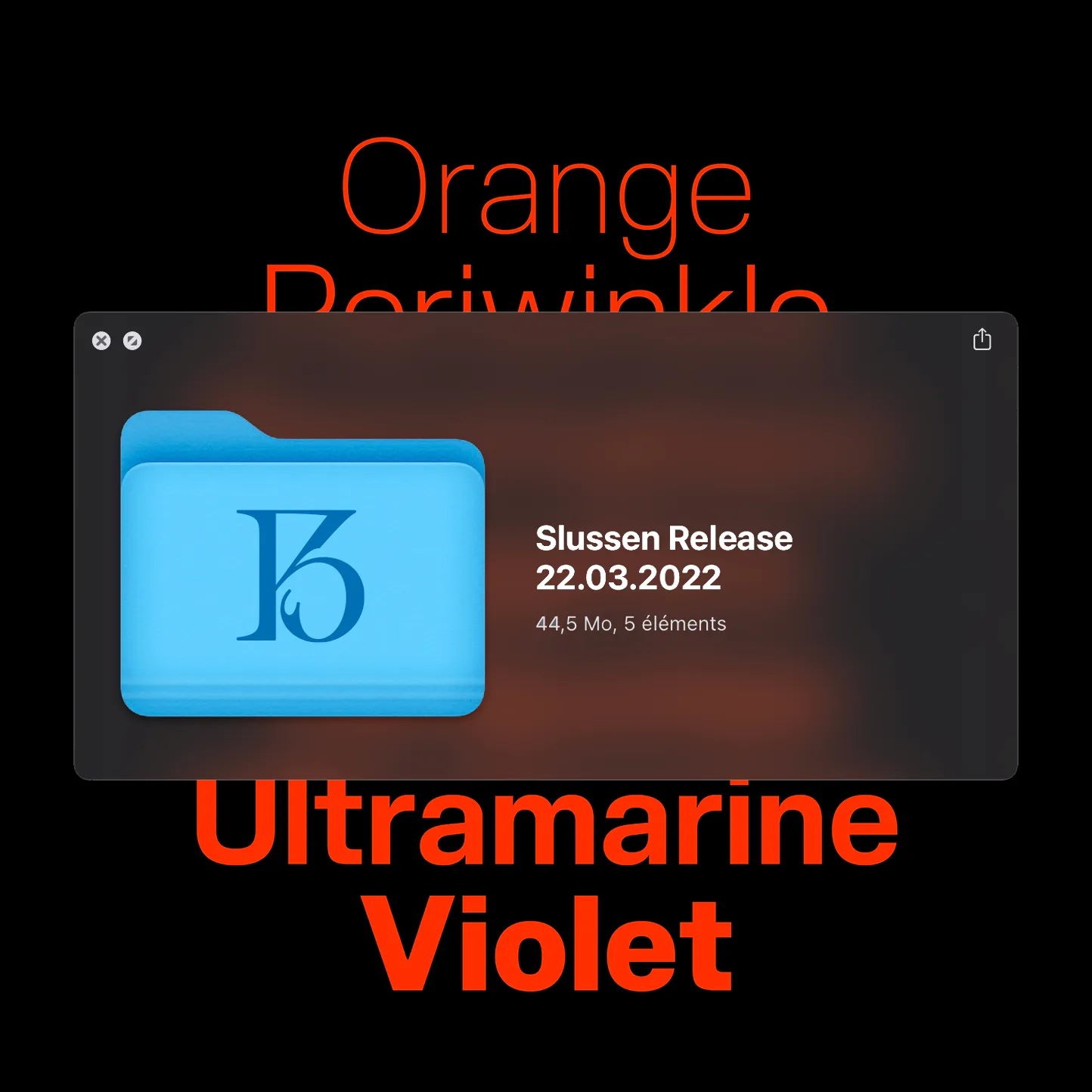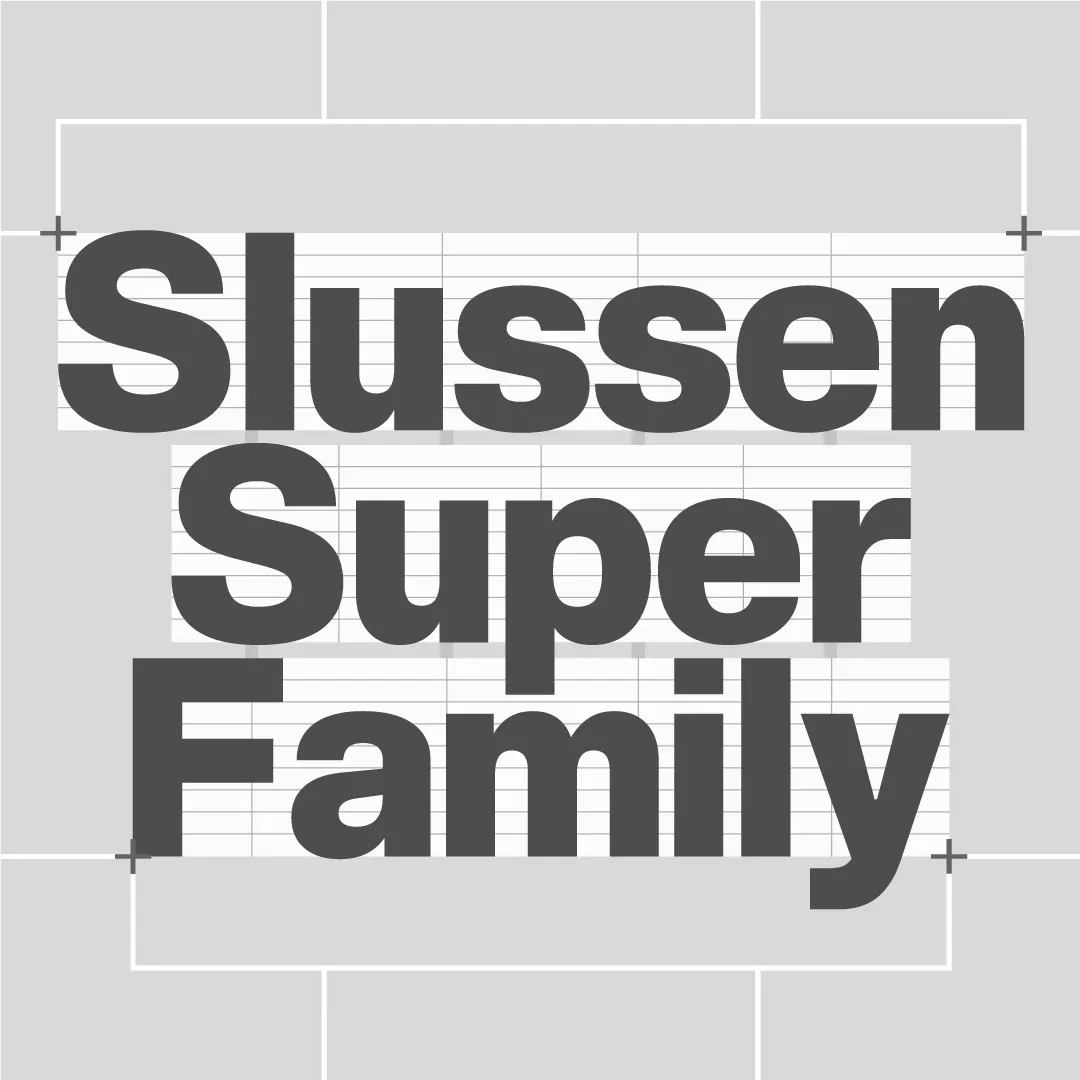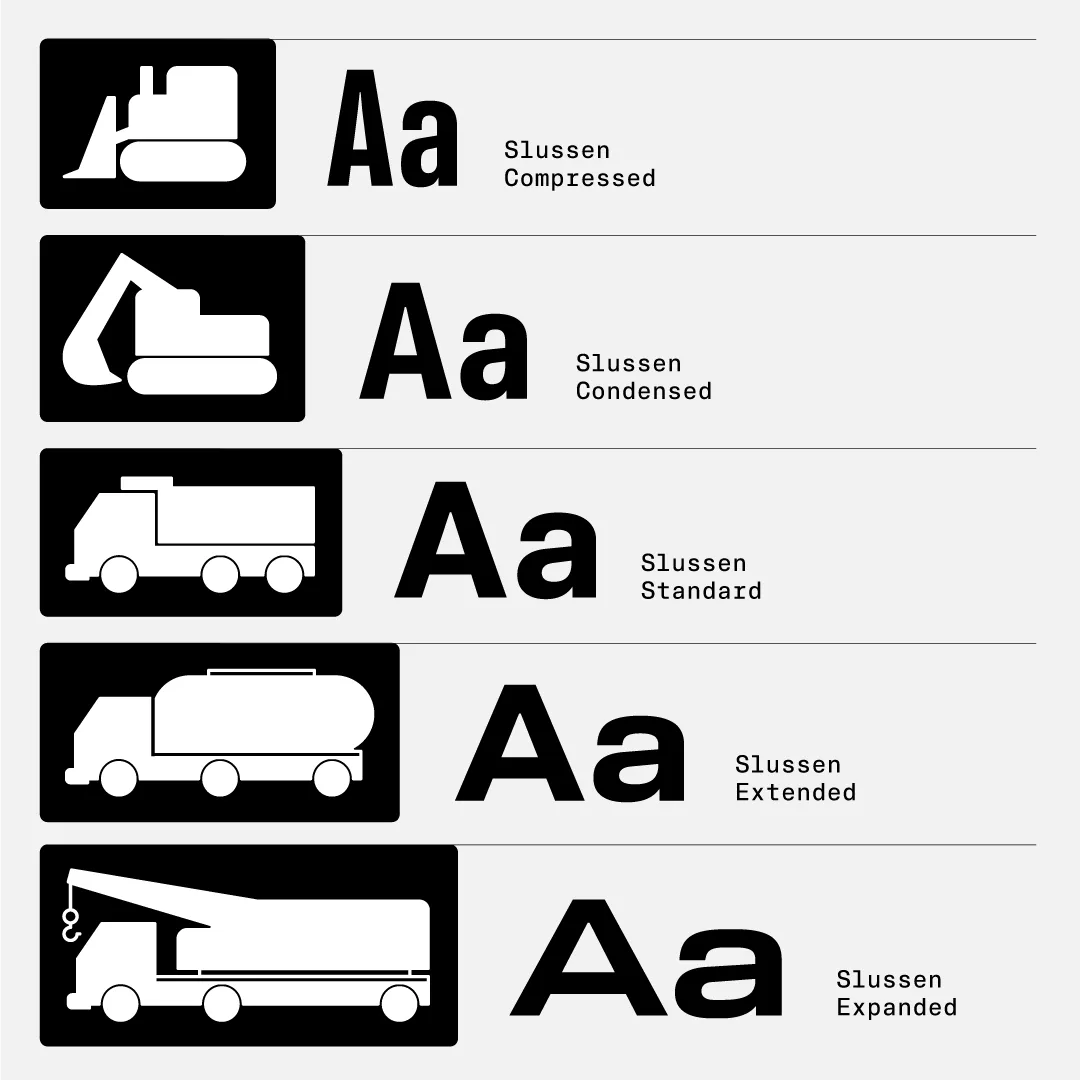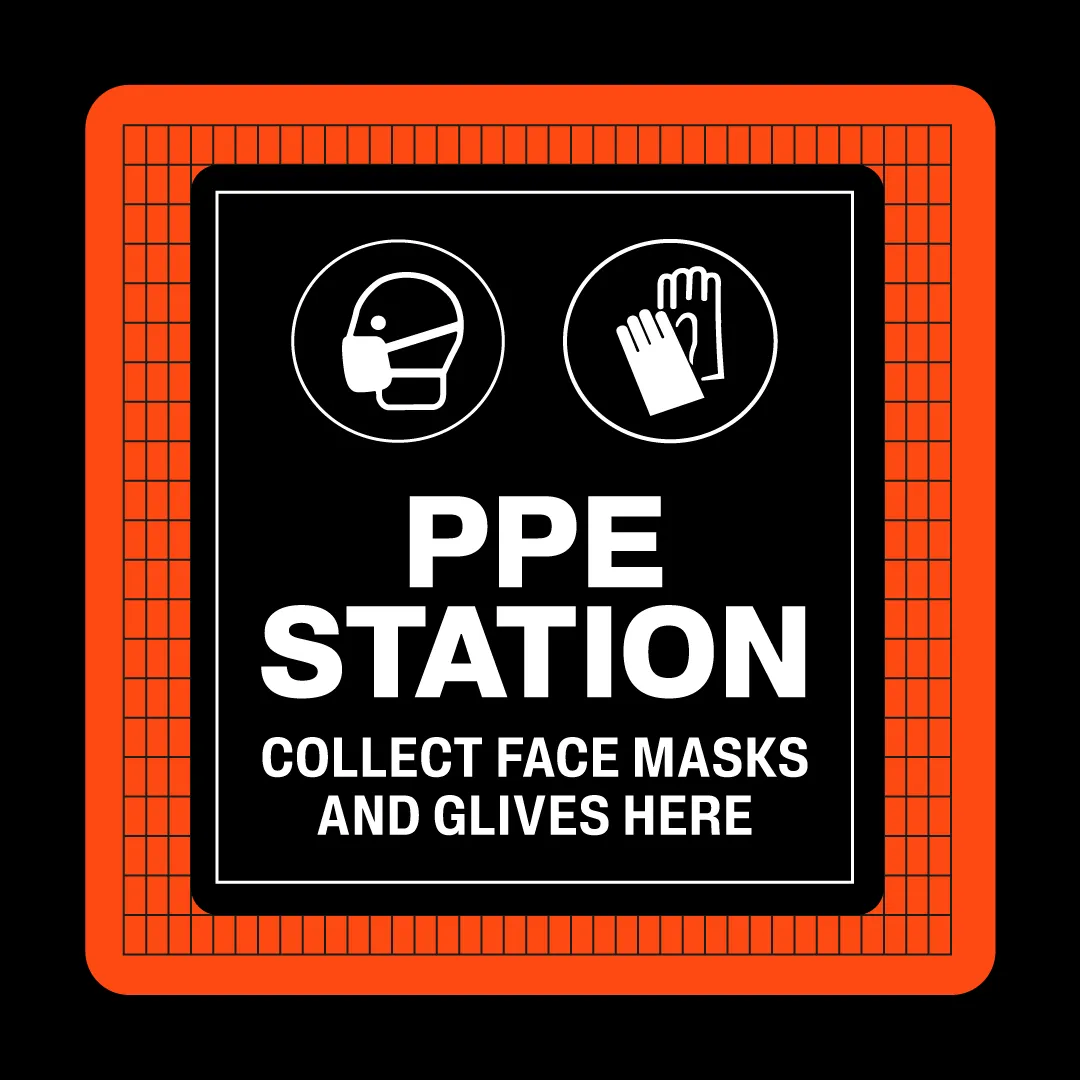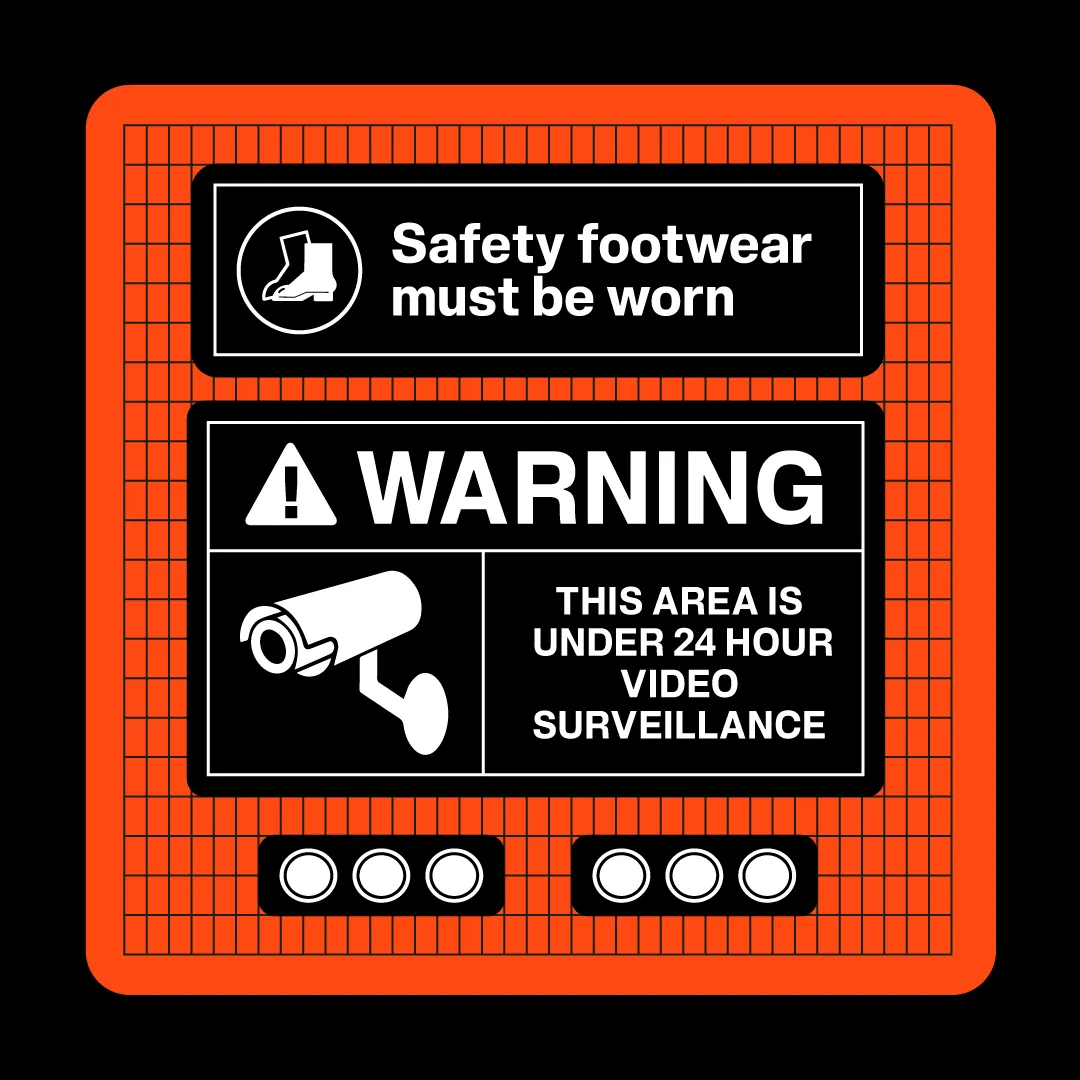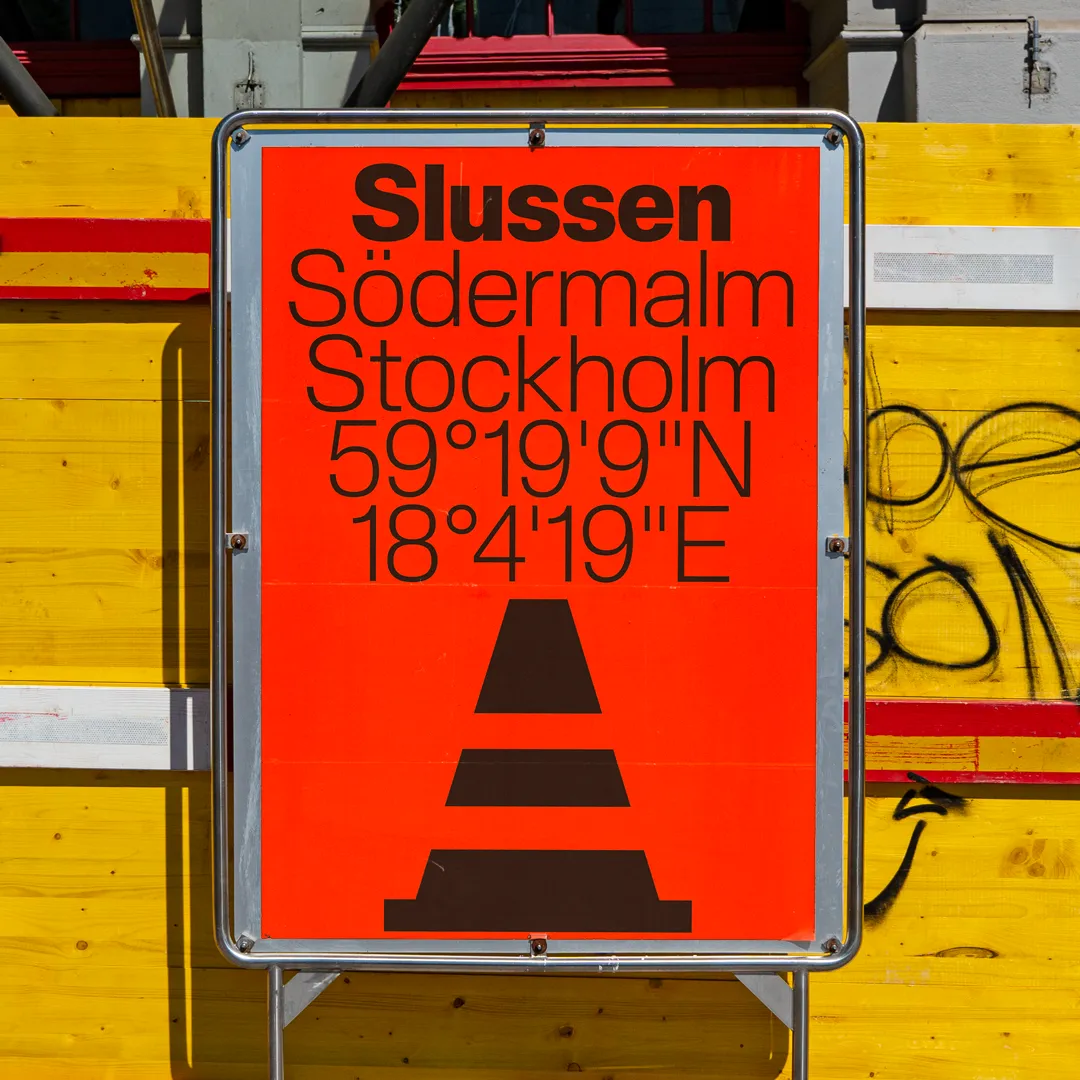
Slussen
· 5 Families
Slussen is a Neo-Grotesque typeface inspired by architecture and construction. It is well suited to tech and industrial companies. Slussen's inspiration comes from rhythm and organisation of construction sites. When compared to more conventional Neo-Grotesque typefaces, Slussen's design structure is based off architecture, and linear evolution throughout angular outlines. Combined with flat endings and a slight contrast in letterforms, this font family has been designed to cover a very large range of uses, from small captions to huge titles. From Compressed to Expanded, the complete family ranges across 6 widths and 8 weights + matching italics for a total of 104 styles in order to fit all types and sizes of supports, both print and on screen. The family includes a Stencil version in reference to construction sites, ideal for designing signage tools and a Monospace version which combined with the standard version, allows Slussen to be a strong font system.
Hugo Jourdan
2022